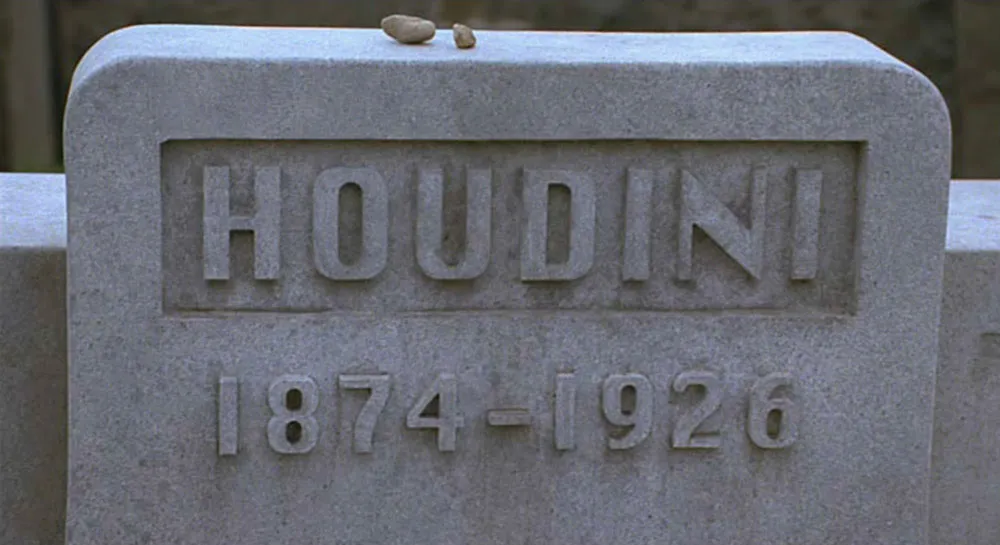
How Did He Do It!?
This item was sent to me by Steven Hill last year, and it’s one of my favorite type/film gaffes.
It’s from a thriller called Oxygen made and set in 1999. It stars Adrien Brody as a clever kidnapper with a Houdini fixation. In one scene, he instructs the husband of the woman he’s kidnapped to deliver the money to him at Houdini’s grave and there’s a close-up of the gravestone:
In case you don’t recognize it, that’s the TrueType version of the old Macintosh system font, Chicago, released in 1989.
I also think it’s funny how the numbers for the years are not carved into the marble but, instead they project outward. I don’t know much about cutting gravestones, but I would think you would waste a lot of stone to get that effect. I also wonder how those little pebbles got up there… Mysteries upon mysteries!
Update: According to Victor Caston, it’s a Jewish tradition to place pebbles on the headstone, and Houdini was Jewish. One mystery solved, anyway. Amazing yet intermittent attention to detail.
Further Update (June 25, 2005): According to reader Zaldamo, the real Houdini gravestone features raised letters. (It’s also quite a bit fancier.) I did say I don’t know much about how they make gravestones. One thing is still certain: Apple’s Chicago font didn’t exist in 1926.
When I wrote Typecasting: The Use (and Misuse) of Period Typography in Movies over two years ago, I closed it with:
“I hope to add more examples in a follow-up article. If you have any film/type gaffes to share, drop me a line.”
Well, lots of you did drop me a line, but so far I have not written the follow-up article. Instead, I have decided to post examples here, filed under “Son of Typecasting.”
Titanic Blunders
Not long after writing and posting Typecasting in December 2001, I learned from a reader that a similar article by Scott Stowell had been published earlier that year in Trace/AIGA Journal of Design, Vol. 1, No. 1, called “Accident Grotesk.” I sent for a back issue to check it out.
Had I seen it before I wrote my article, I might have had second thoughts. The premise — and even the tone — was similar. However, Stowell chose completely different examples: Titanic (1997), Topsy-Turvy (1999), Amistad (1997), Donnie Brasco (1997), Dazed and Confused (1993), The Perfect Storm (2000), and American Psycho (2000).
After reading it, I generally thought it was good, but I was a bit disappointed. In a few of the examples Stowell gives, I think the fonts are mis-identified. For example, he claims that the lettering on the gangway shown early in Titanic is set in ITC Officina (1990-1998):
For one thing, the capital “I” in Officina has serifs. Other than that, it’s very close, but I don’t think it quite matches. Unfortunately, I haven’t been able to identify what it is, if it’s not Officina. I do agree that it does not look right for the era, whatever it is.
When I wrote my article, I wanted very badly to find type gaffes in Titanic but came up emptyhanded. After seeing Stowell’s find, I took another look and found an even better example:
The steam pressure gauge label is set in Helvetica (1959).
(On a non-type-related note, there are also the famous Picasso and Braque paintings shown in one scene, but maybe they made it to the life boats.)
Anyway, I don’t want this to be a blow-by-blow critique of Stowell’s article. After all, it preceded mine by nearly a year, and I must give him credit for that.
Update: Just heard from Scott Stowell, the author of “Accident Grotesk.” He maintains that it really is Officina, with the serifs on the “I” lopped off. Given that I am unable to offer a more convincing alternative, I admit that it’s possible he’s right.
Scott also tells me that, ironically, it was the steam gauge gaffe that lead to his writing the article. When designer Michael Bierut mentioned it to him in 1998, it became the genesis of his article. He left it out because he didn’t want to take credit for it and thought the use of Officina was worse anyway.
Further Update: James Mosley, who writes about the history of type among other things, points out that Helvetica is not a completely anachronistic choice for the steam gauge. There did exist at the time of the Titanic ancestors of Helvetica that looked remarkably like it in some respects. So, technically, it’s not correct for the period—I think Akzidenz Grotesk would have been a better choice—but it’s not dissimilar to what might have been used.
Typecasting Trailer
Typecasting Trailer from Mark Simonson on Vimeo.
In 2002 I created a Flash animation to promote “Typecasting,” an article about the use and misuse of period type in popular movies. It’s supposed to feel a little pretentious and self-important, just like a real movie title or trailer.
Update: I created a higher resolution version in 2005 at the request of Yves Peters. That’s the version seen here. The original, tiny Flash version was annoying anyway. There was no way to stop it from playing once it started. And it started automatically. —MS, February 2013